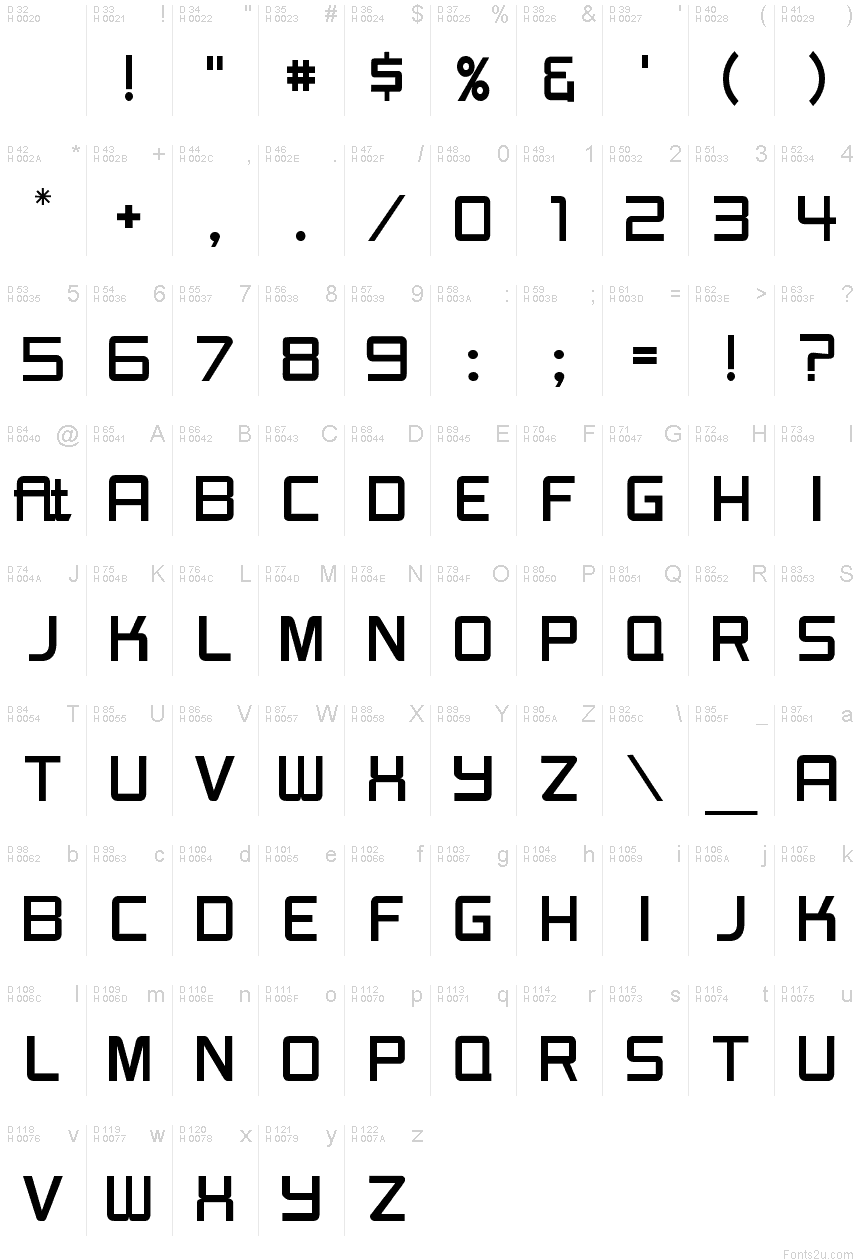
Burger Joint JL
This font was derived (with permission) from a Ray Larabie original.
It has a Deco/50's feel and is best suited for nostalgic headlines.